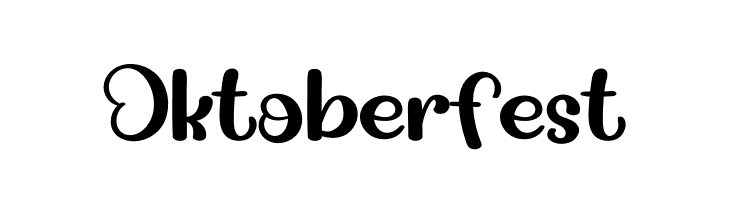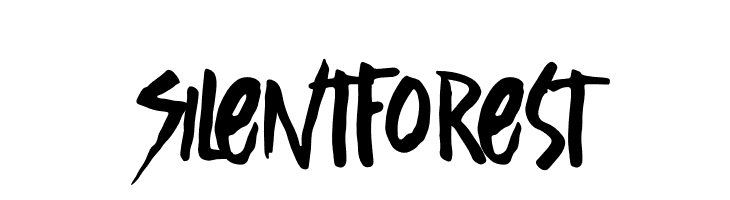
A playful and elegant script font with flowing, cursive letters.
A playful, bold font with a whimsical, calligraphic style and rounded edges.
A bold, rounded font with a playful and modern style.
A bold, rounded font with a three-dimensional outline for a playful, modern look.
A bold, rounded font with a strong and friendly appearance.
A bold, hand-drawn font with an expressive and dynamic style.
A bold, slightly condensed font with a playful yet assertive style.
A modern sans-serif font with clean lines and a professional appearance.
A modern, condensed sans-serif font with uniform stroke width and high readability.
A bold, decorative font with playful cutouts and a whimsical style.